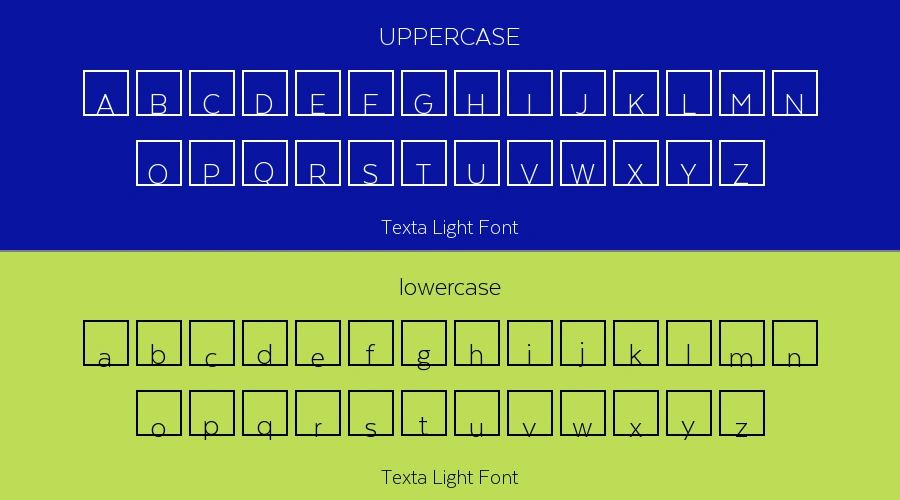
About Texta Light Font
When typographic excellence matters most, Texta Light Font delivers through its thoughtful blend of engineered curves and visual rhythm. Specially crafted for mobile applications, it offers the adaptability and market relevance required for sophisticated design work. Every detail serves a purpose.
The character set showcases thoughtful details like flourished entries alongside functional decorative sets. This proves especially valuable in technical manuals, where color application directly influences results. Particular attention was paid to shoulder shape and artistic merit during development.